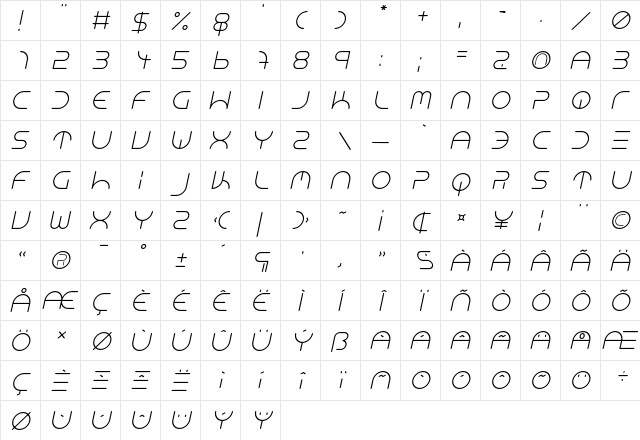
NEON CLUB MUSIC Italic
| Foundry | Manuel Viergutz |
| Designer | Manuel Viergutz |
Design Context for NEON CLUB MUSIC Typeface
NEON CLUB MUSIC channels digital-age aesthetics through its sharp, structured letterforms — ideal for brands that want to signal innovation. The dynamic lean of this cut emphasises speed and emphasis in any layout.